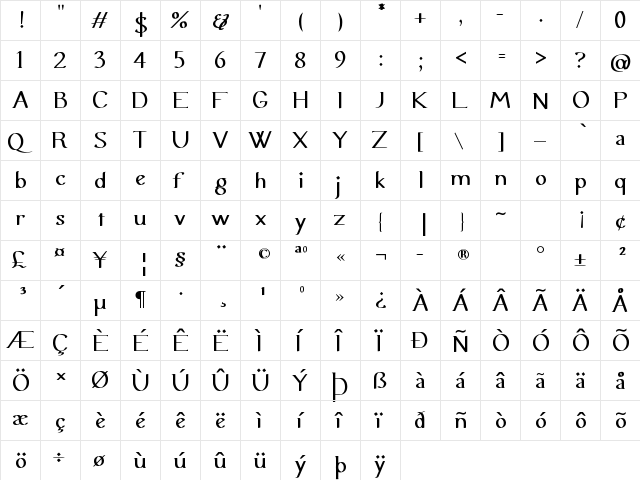
Urania Semi Serif
| Style | Semi Serif |
| Designer | Type Sailor - David Espinosa |
Design Context for Urania Typeface
Urania carries the refined structure of traditional serif typography, with bracketed terminals and considered proportions that communicate credibility and craft.
Pro Tip: Use Urania for editorial body copy and considered headline work. Pair with a neutral sans for UI elements or captions to create a classic hierarchy.